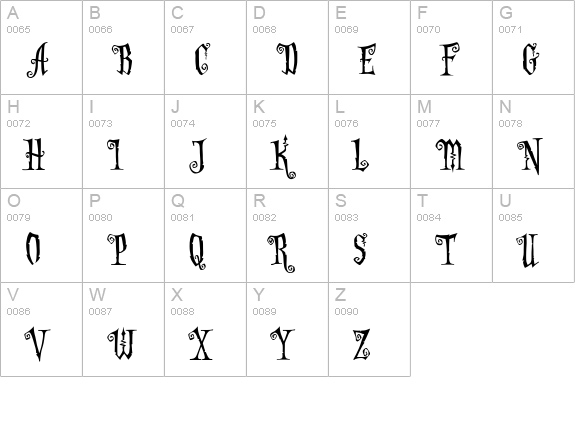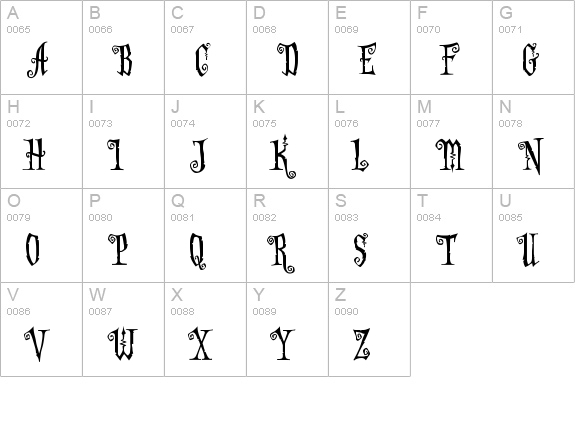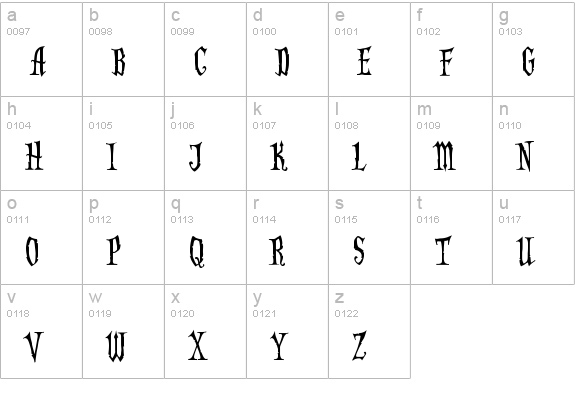
Addams-Capitals Font Details
Addams-Capitals is a stunning and sophisticated font that exudes elegance and charm. With its bold and striking capital letters, this font is perfect for creating eye-catching headings and titles that demand attention. The unique design of Addams-Capitals adds a touch of class to any project, whether it be for print or digital use. What's even better is that Addams-Capitals is completely free for personal and commercial use. You can easily download this beautiful font at FontsMarket.com and start using it in your designs today. Don't miss out on the opportunity to add a touch of luxury to your projects with Addams-Capitals!